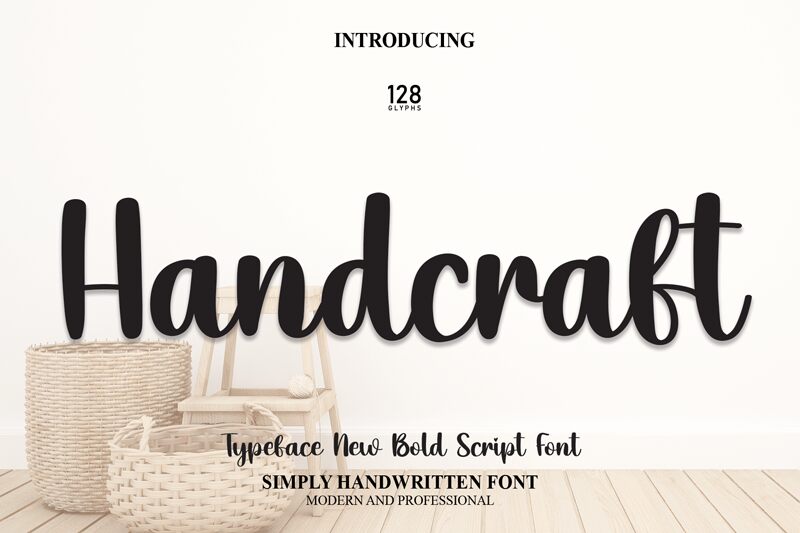
Handcraft
Handcraft, a mesmerizing creation by Scratchones, is a bold and smooth brush font that will add elegance and uniqueness to your projects. With its distinctive style and weight, Handcraft is perfect for branding designs, such as logos and packaging. Its smooth strokes make it ideal for creating eye-catching headlines on websites or in print media. This versatile font brings a touch of sophistication to invitations, greeting cards, and posters.
Let Handcraft elevate your artistic endeavors with its bold yet graceful presence.